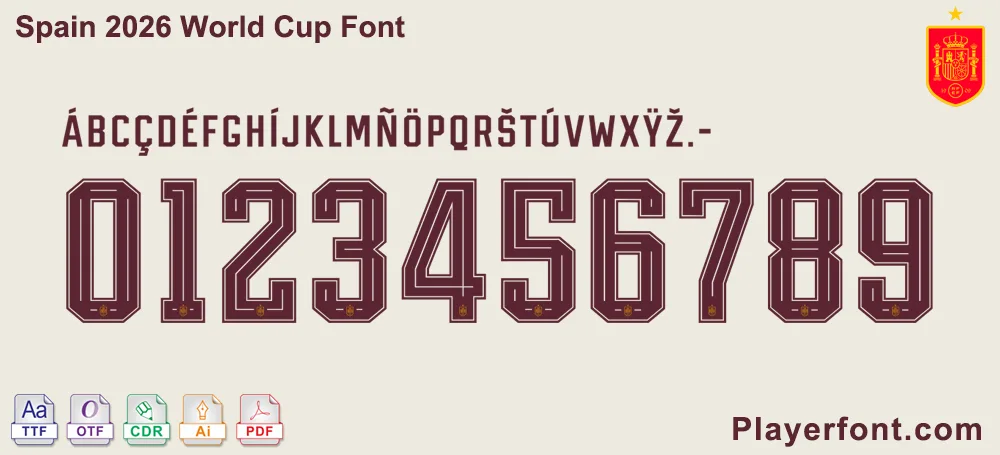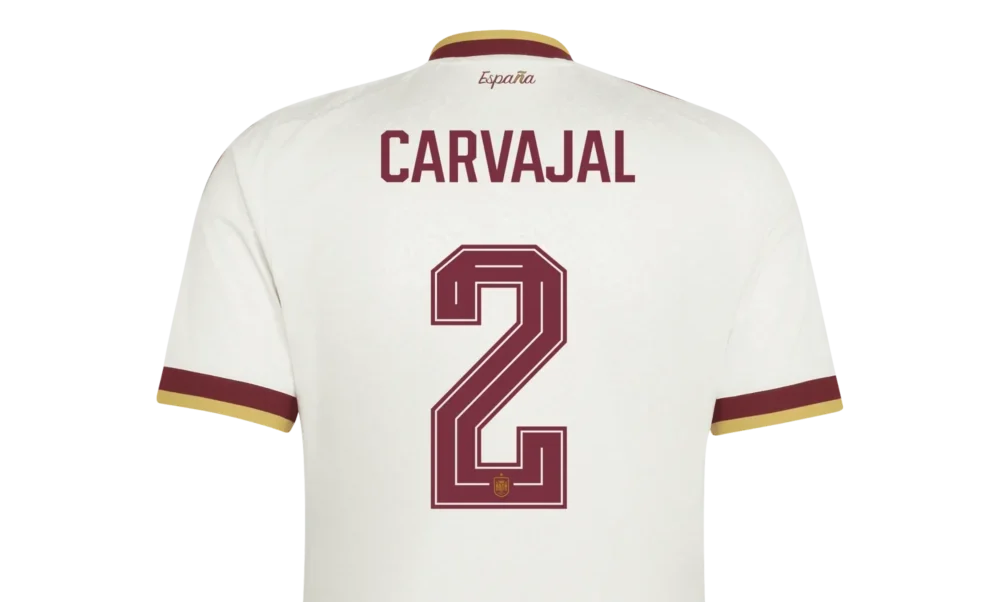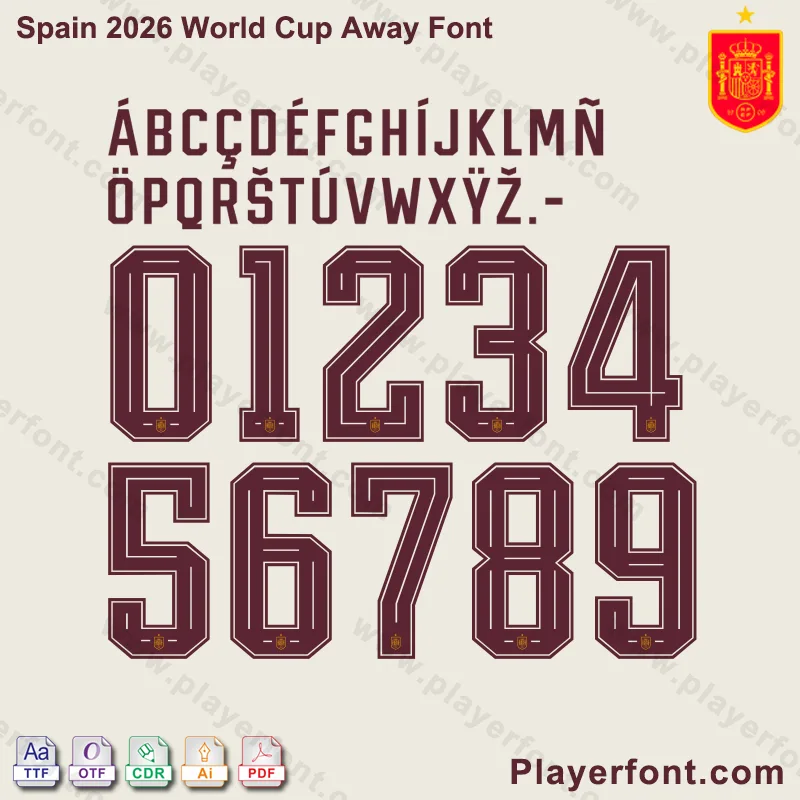
Elevate your sports design projects with the Spain 2026 World Cup Away Font. This kit captures the unique, intricate inline aesthetic of Spain’s latest away look, featuring the distinctive numbers and specialized lettering seen on the 2026 tournament kits.
Full Character Set: Includes all uppercase letters (A-Z), specialized accents (Á, Ç, É, Í, Ñ, Ó, Ú, Ü), and the iconic inline numbers 0-9 featuring the Spain crest at the base.